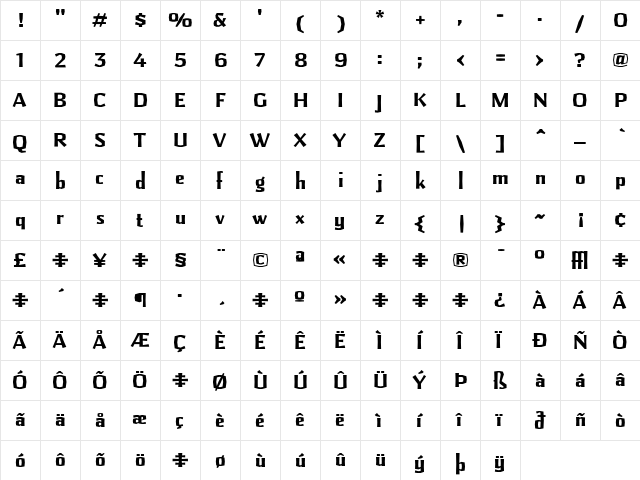
Pilsner Bold
Design Context for Pilsner Typeface
Pilsner is a composed and adaptable typeface that performs quietly and consistently across a wide range of design contexts. Its bold stroke weight gives it real presence on the page.